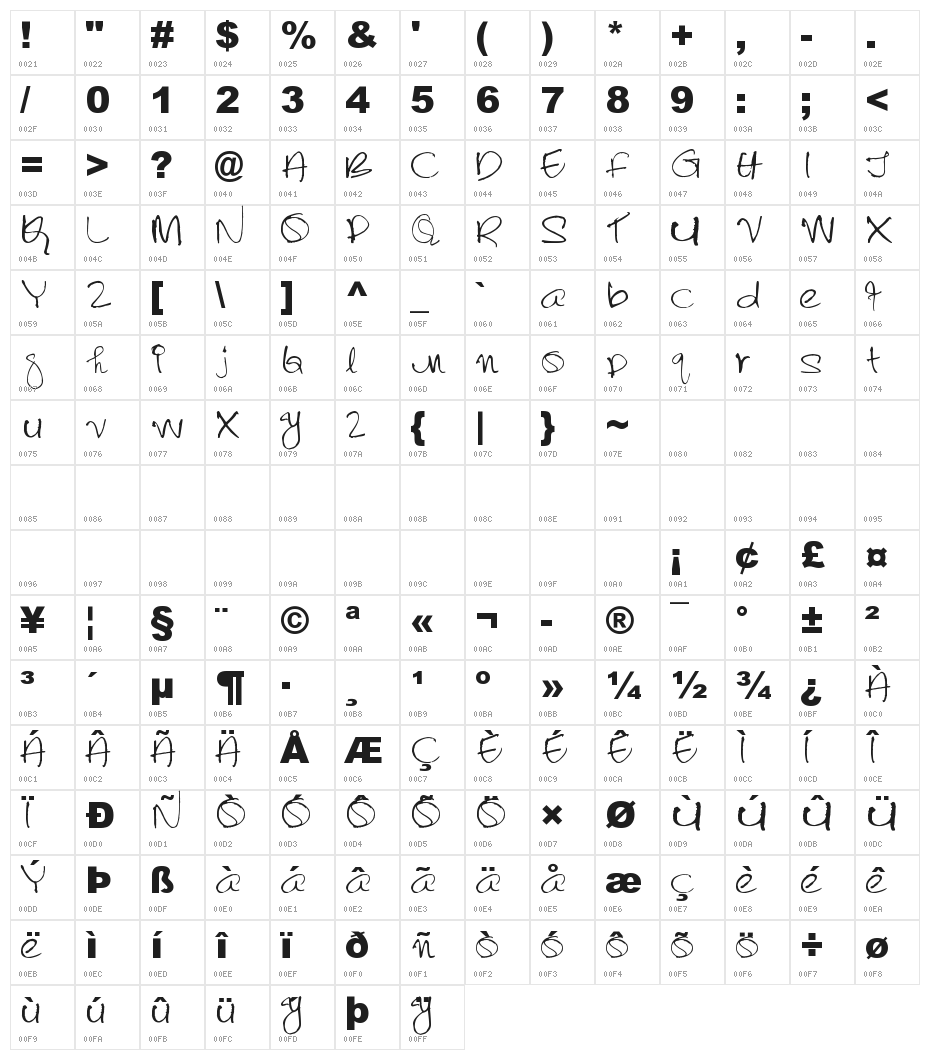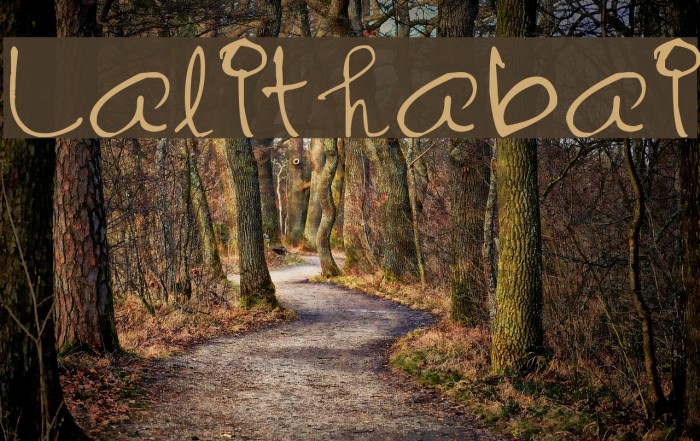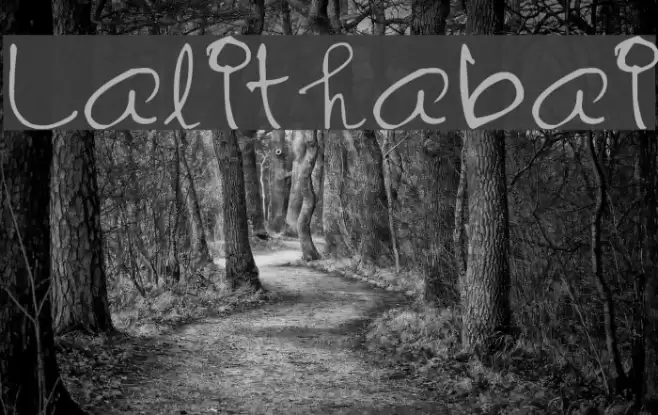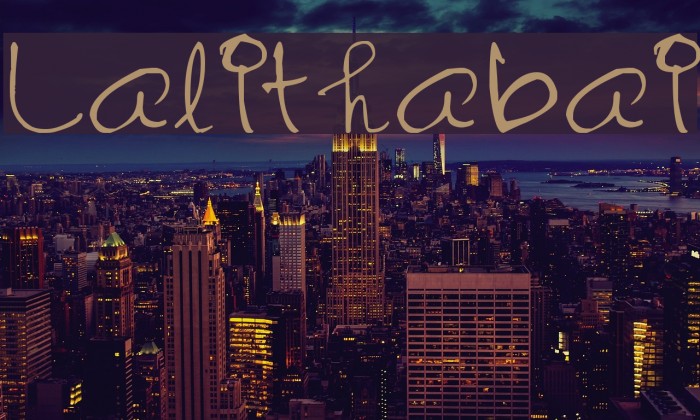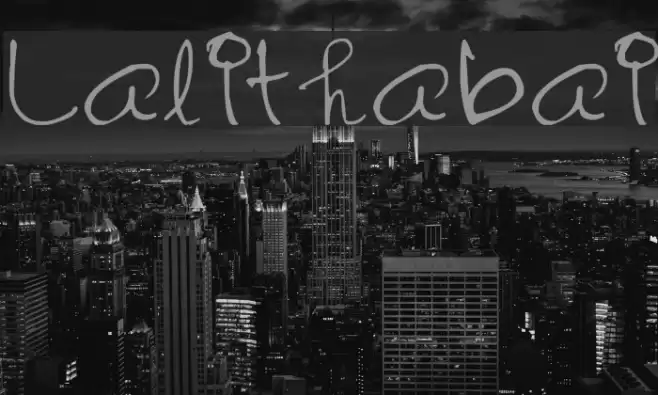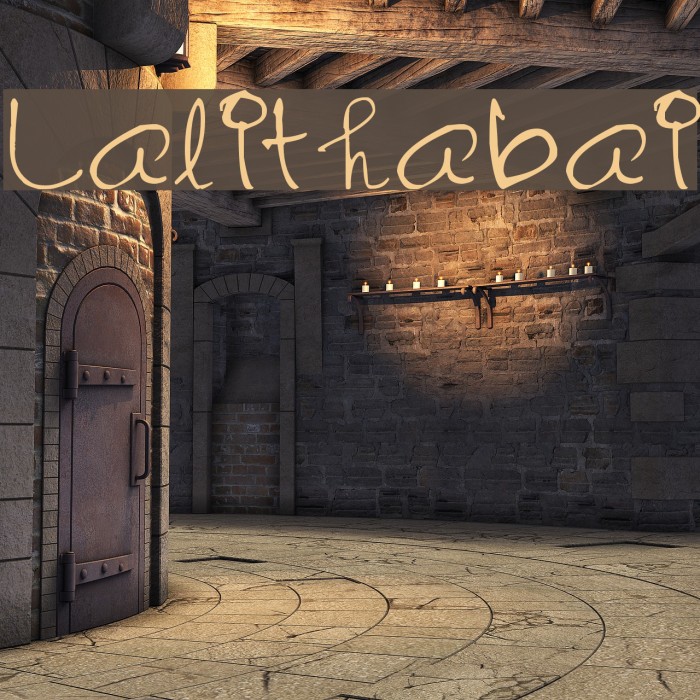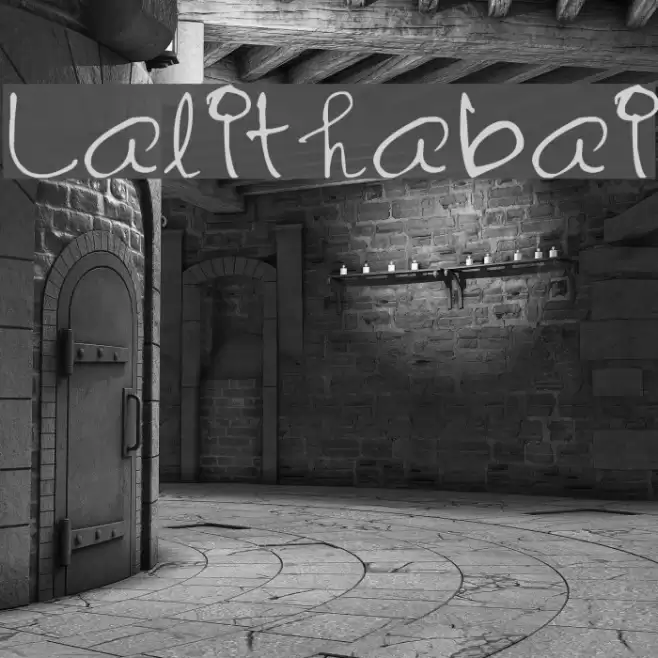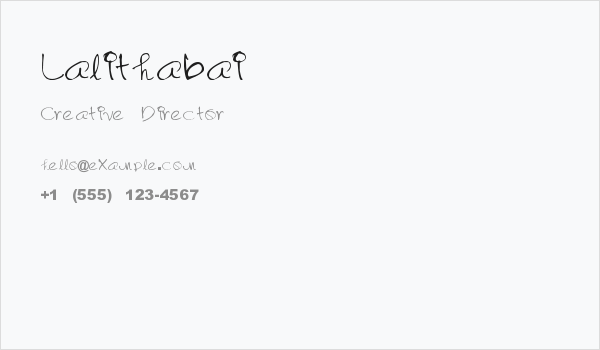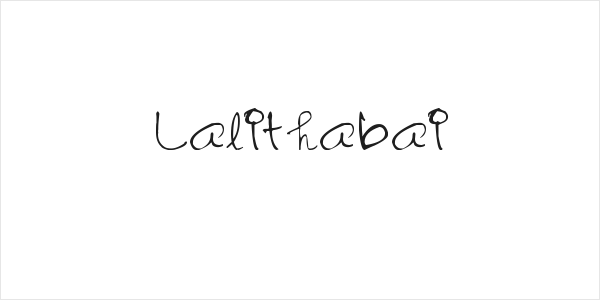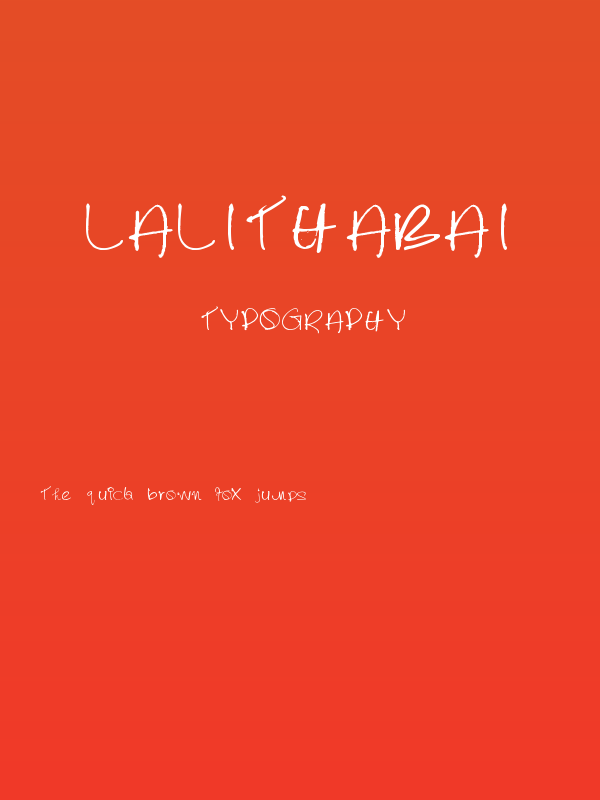
Lalithabai Font
Lalithabai Description
This font features a distinctive handwritten style with an artistic flair, characterized by its fluid and dynamic strokes. The uppercase letters exhibit a playful yet elegant appearance, with varying line thickness that adds a sense of movement and spontaneity. The lowercase letters maintain this lively aesthetic, with some characters featuring loops and swirls that enhance the font's whimsical nature. The numerals are bold and clear, providing a strong contrast to the more delicate letterforms. Special characters are included, maintaining the font's overall expressive style. This font is perfect for projects that require a personal touch or a creative, informal vibe.